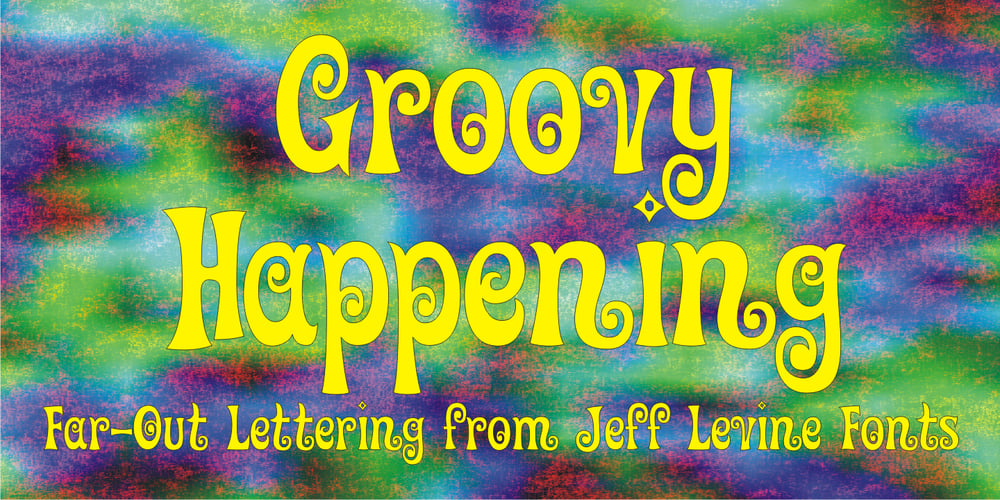
Groovy Happening JNL Font Family was designed by Jeff Levine and published by Jeff Levine. Groovy Happening JNL contains 1 styles and family package options. The long-awaited extension of the freeware font “Action Is”, this Sixties-inspired typeface has an added lower case and additional glyphs including accented characters.